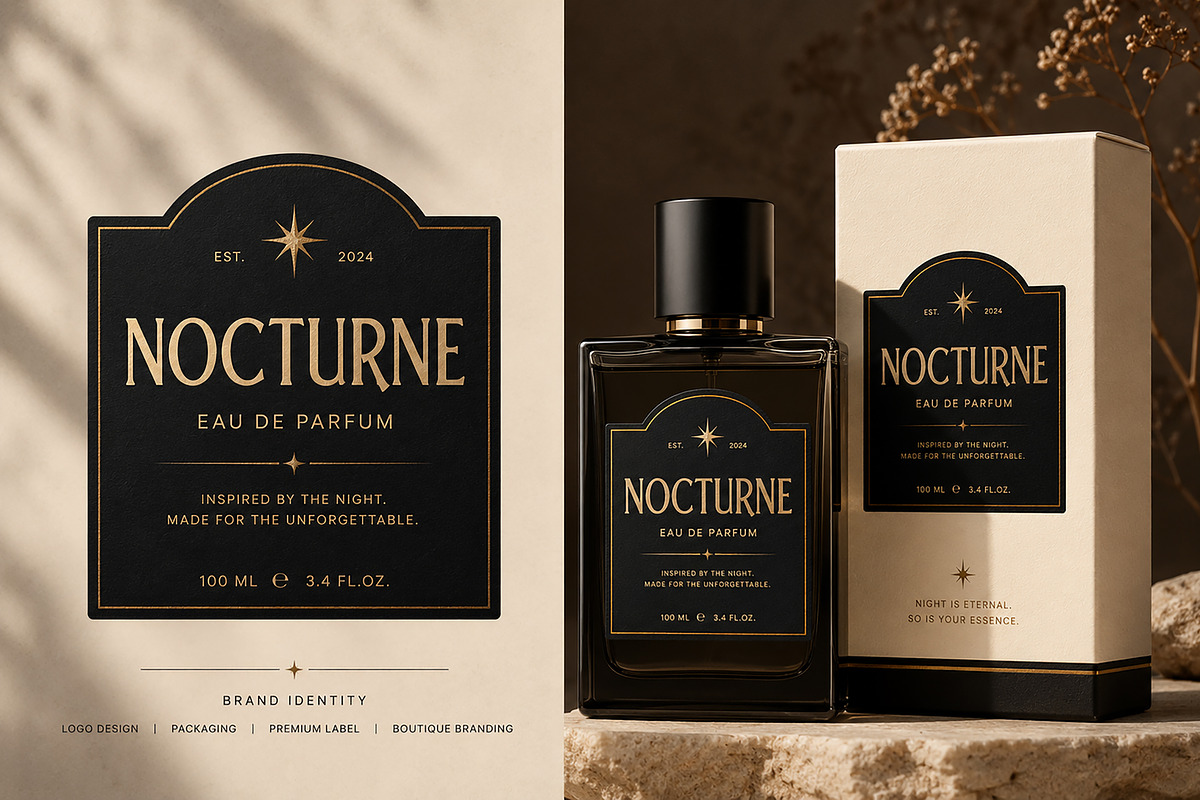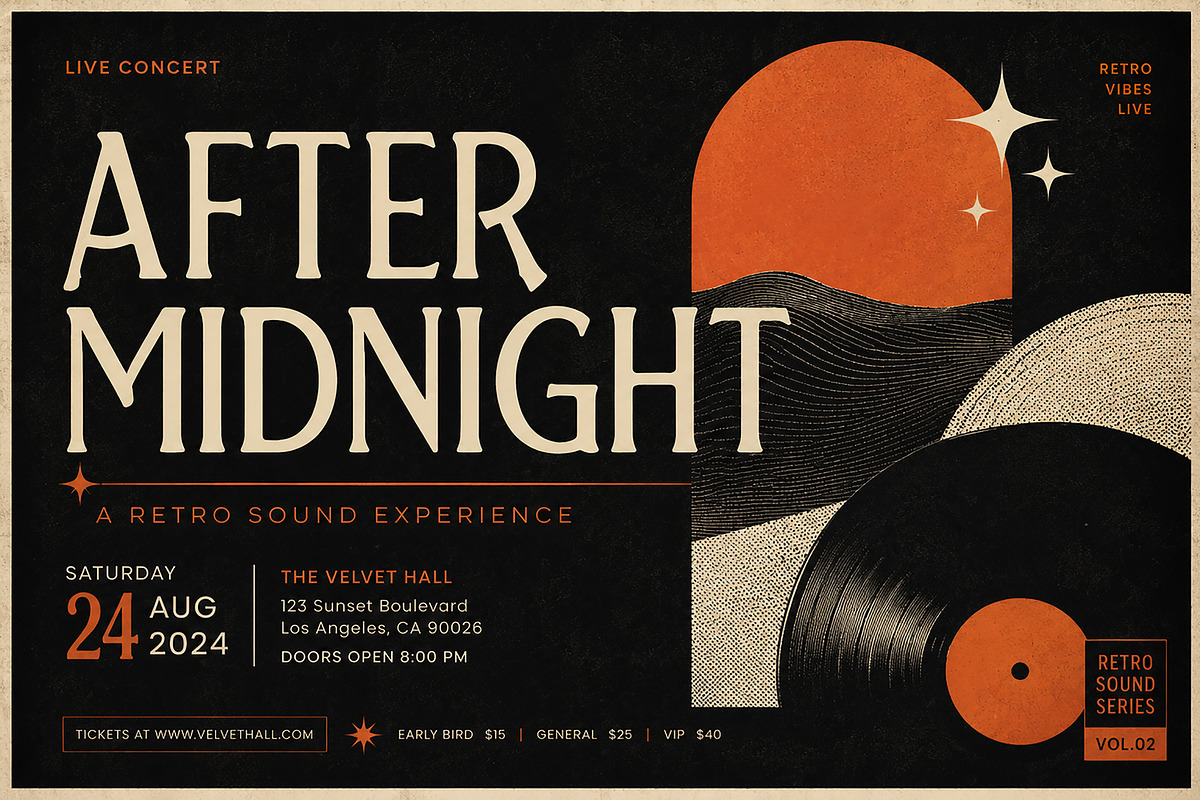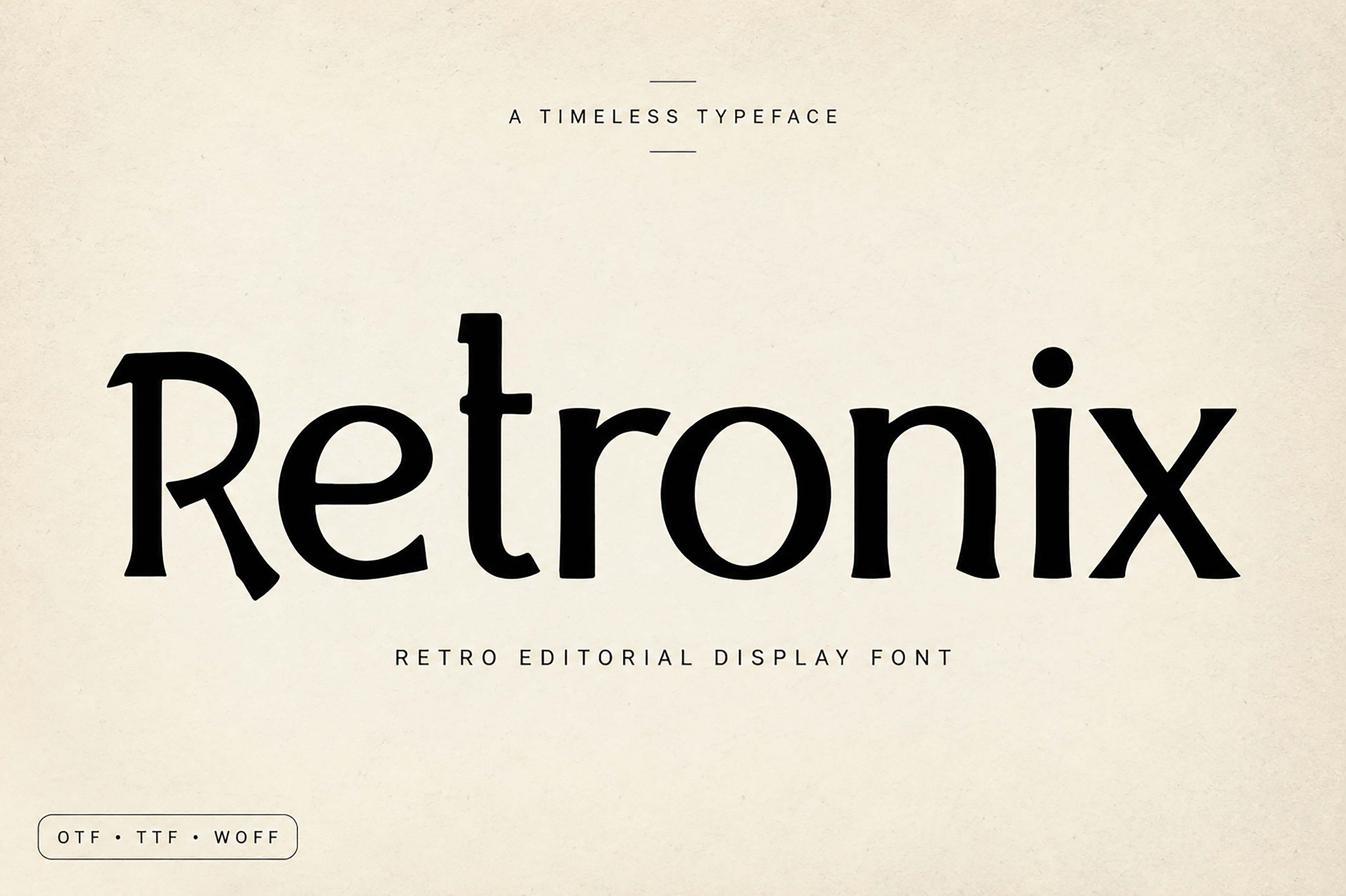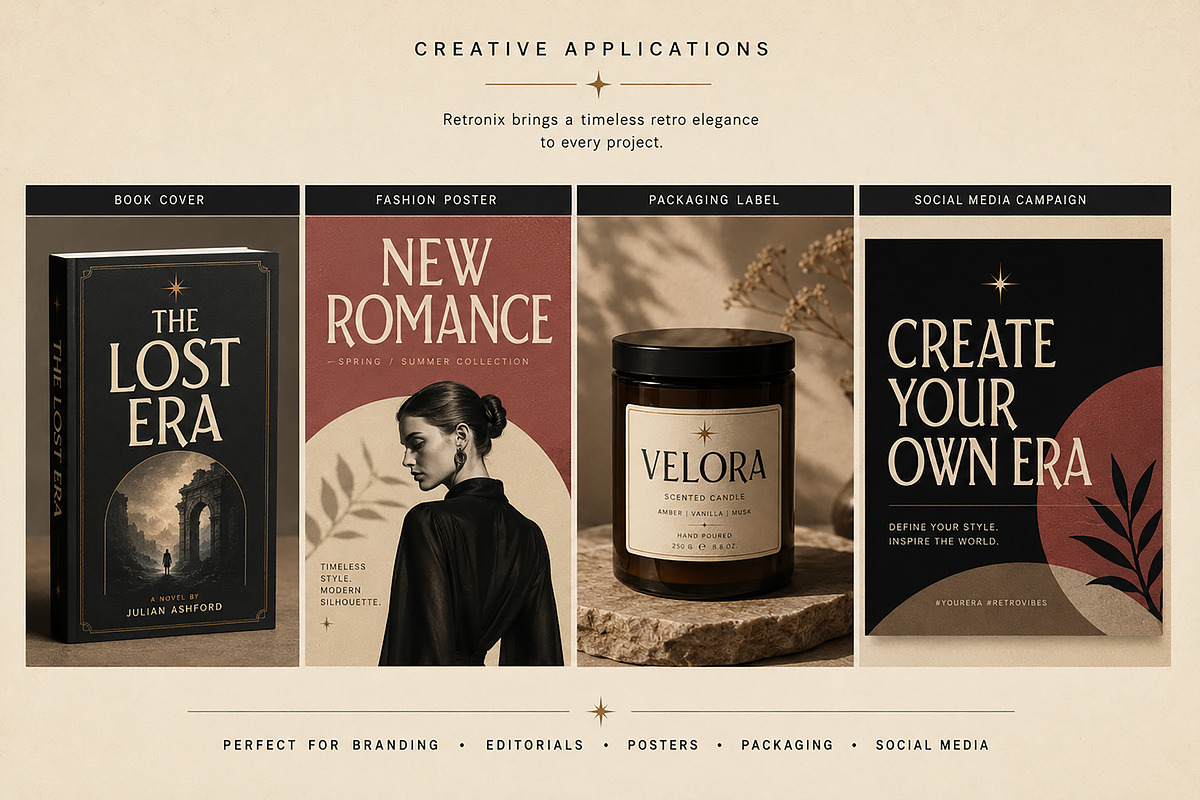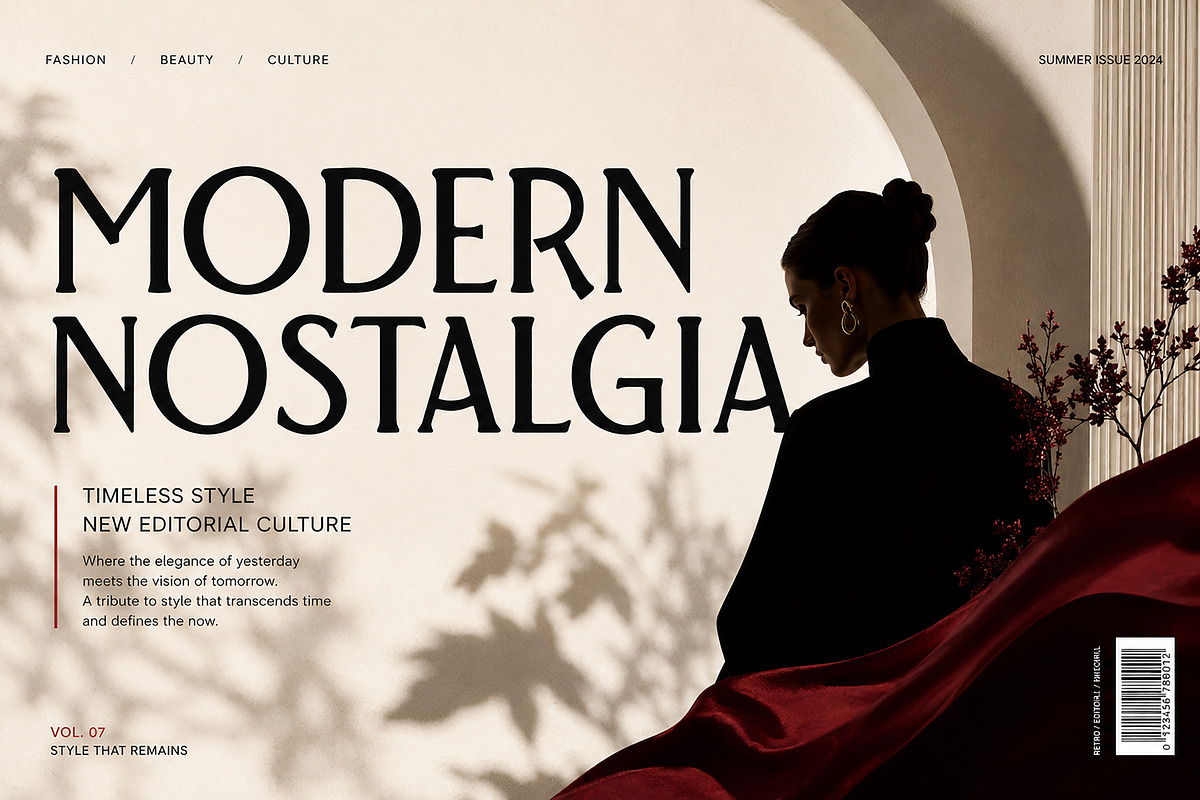
Retronix - Retro Display Font
Retronix
A Retro Editorial Display Font
Retronix is a bold retro display typeface inspired by vintage editorial design, classic magazine headlines, and timeless branding aesthetics. Designed with elegant curves, distinctive character shapes, and a refined vintage personality, it brings a perfect balance between nostalgia and modern sophistication.
Whether you're creating luxury branding, fashion campaigns, book covers, music posters, packaging, or social media graphics, Retronix delivers eye-catching typography with a premium editorial feel.
Its bold presence makes every headline memorable while maintaining excellent readability, making it an ideal choice for designers looking to create distinctive, high-end visual identities.
Luxury Branding
Fashion Editorials
Magazine Covers
Music Posters
Vintage Posters
Perfume Branding
Candle Labels
Coffee Branding
Wine Labels
Boutique Logos
Product Labels
Advertising Campaigns
Creative Headlines
Event Posters
Merchandise Design
Website Headers
Premium Print Designs
Stylistic Retro Letterforms
Smooth Kerning
Clean Display Design
High-Quality Vector Outlines
Works Great With
Retronix pairs beautifully with clean sans-serif fonts such as:
Inter
Helvetica
Montserrat
Manrope
Neue Haas Grotesk
Futura
Perfect for creating modern editorial layouts with a timeless vintage character.
Why You'll Love Retronix
✔ Elegant Retro Style
✔ Premium Editorial Feel
✔ Distinctive Display Typeface
✔ Perfect for Luxury Branding
✔ Professional Creative Projects
✔ Beautiful for Print & Digital